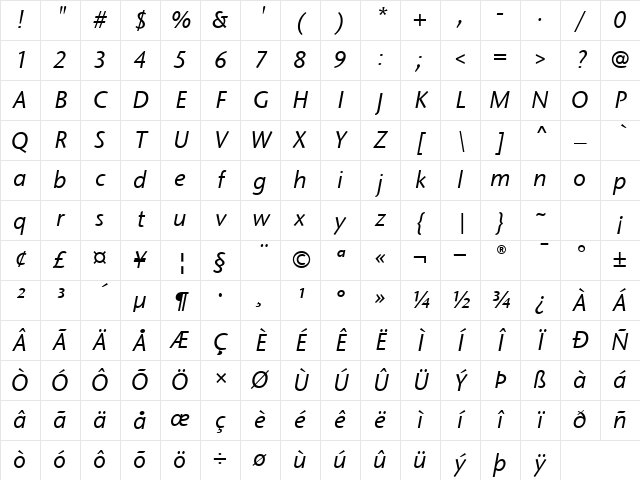
Complete Stone Sans ITC TT MediumItalic glyph index. Displaying only characters natively supported by Stone Sans ITC TT MediumItalic font.
Stone Sans ITC TT is a composed and adaptable typeface that performs quietly and consistently across a wide range of design contexts. The slanted form adds forward momentum and visual energy.
Pro Tip: Use Stone Sans ITC TT for emphasis, pull quotes, and subheadings where its slanted energy can add rhythm to the layout.